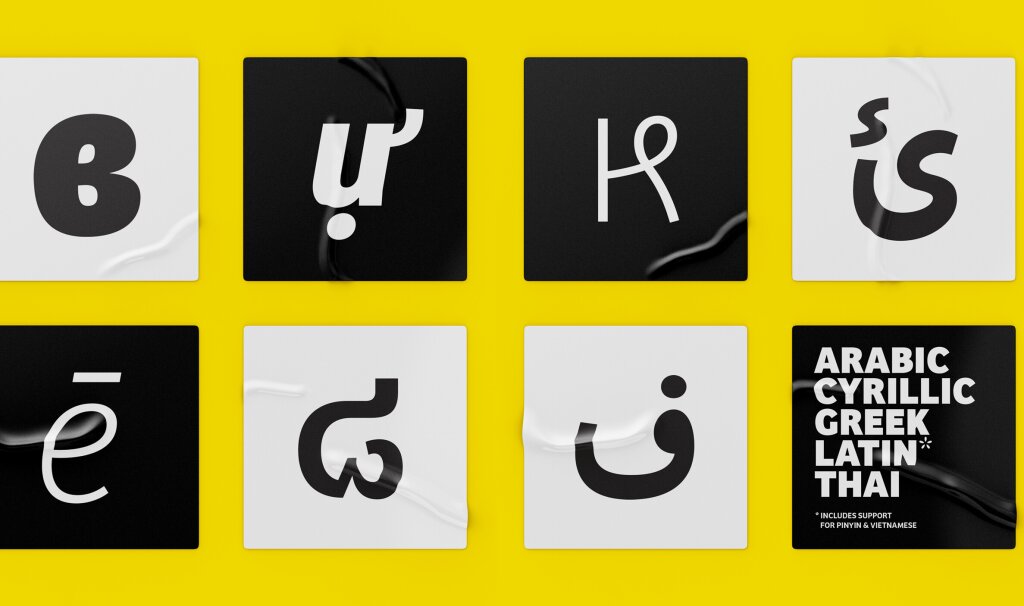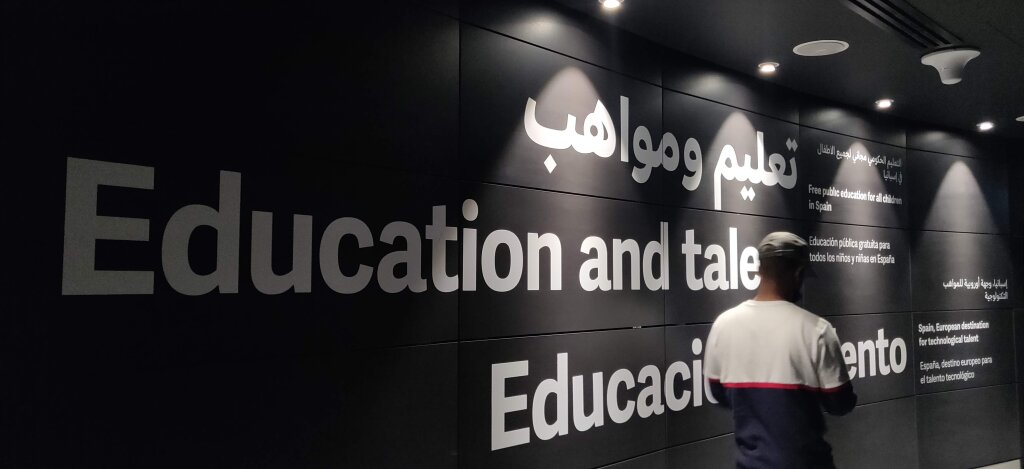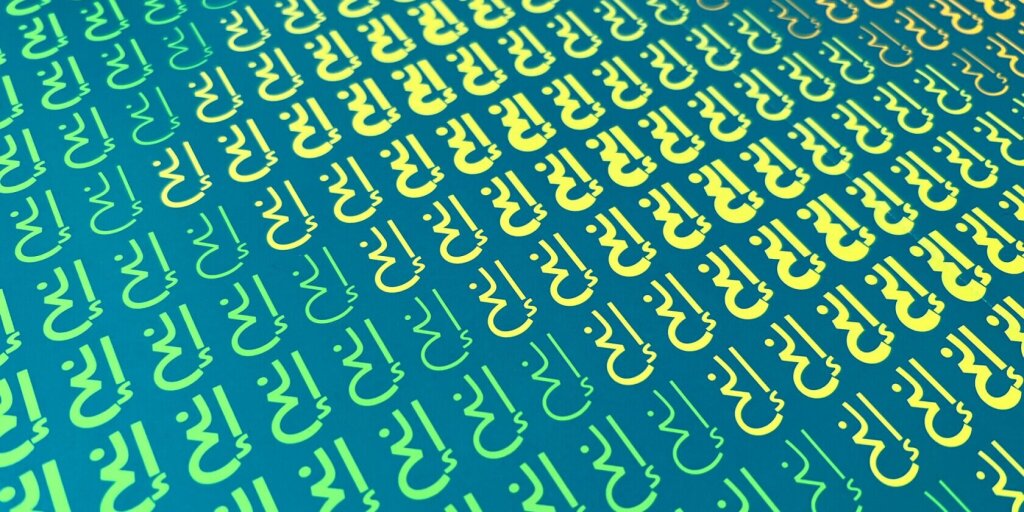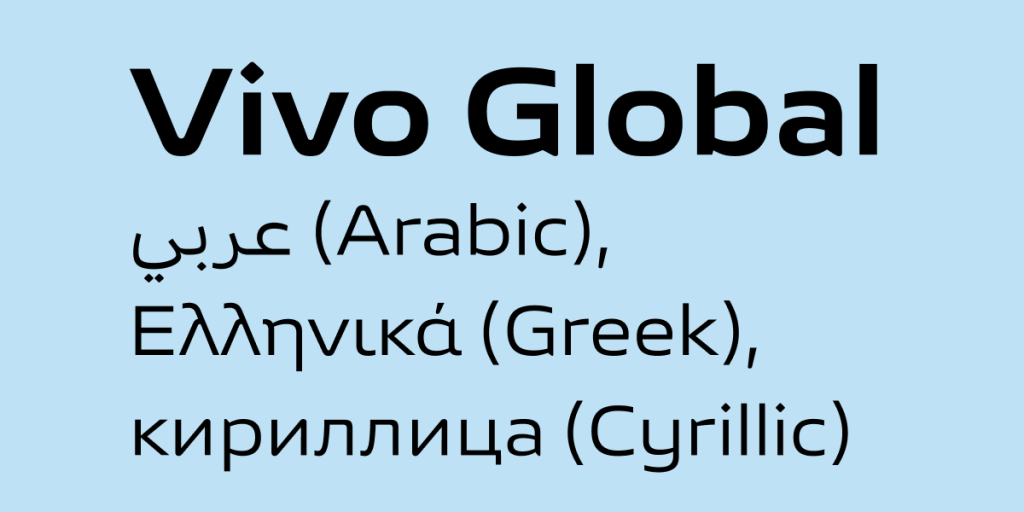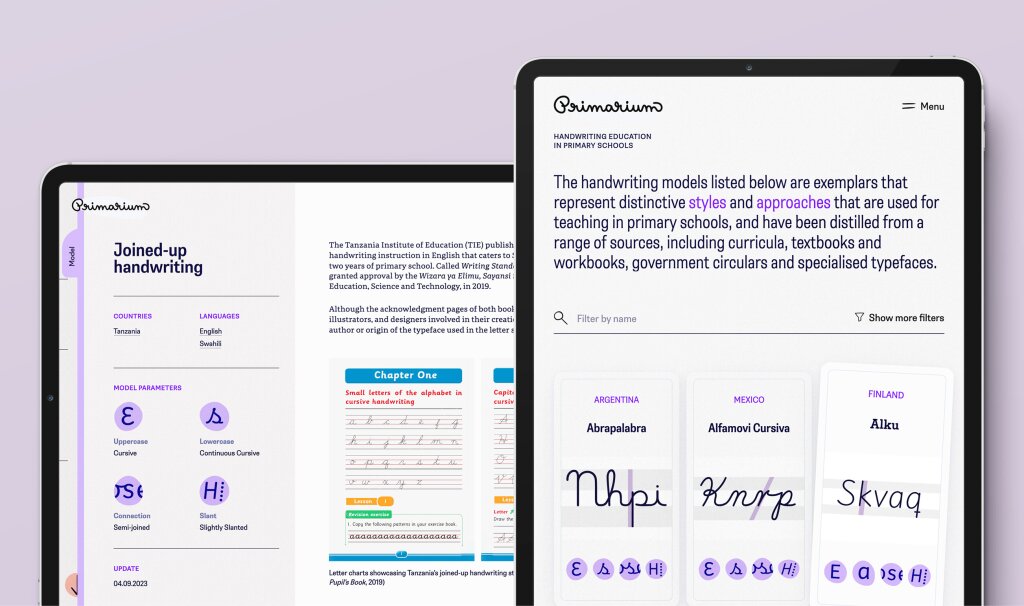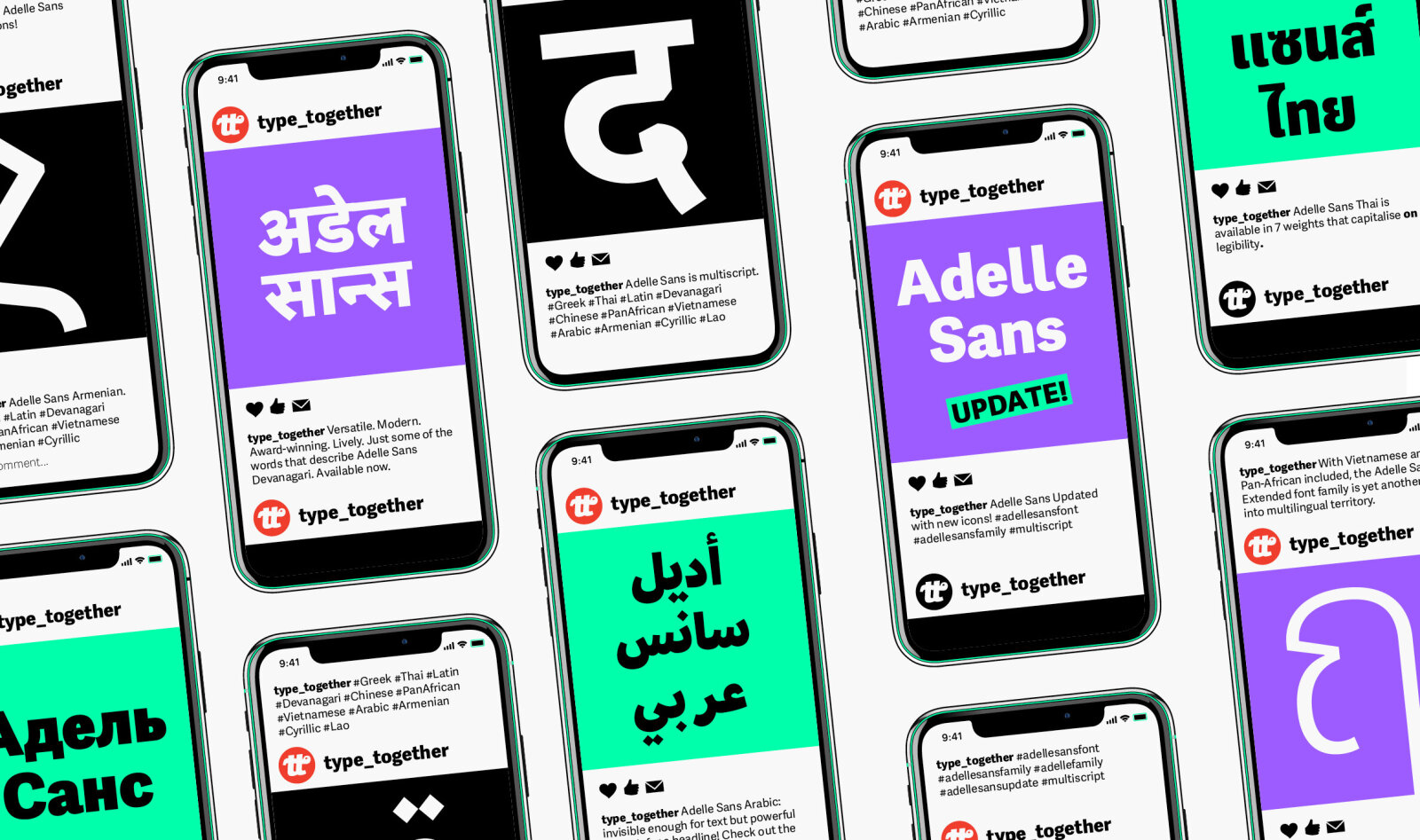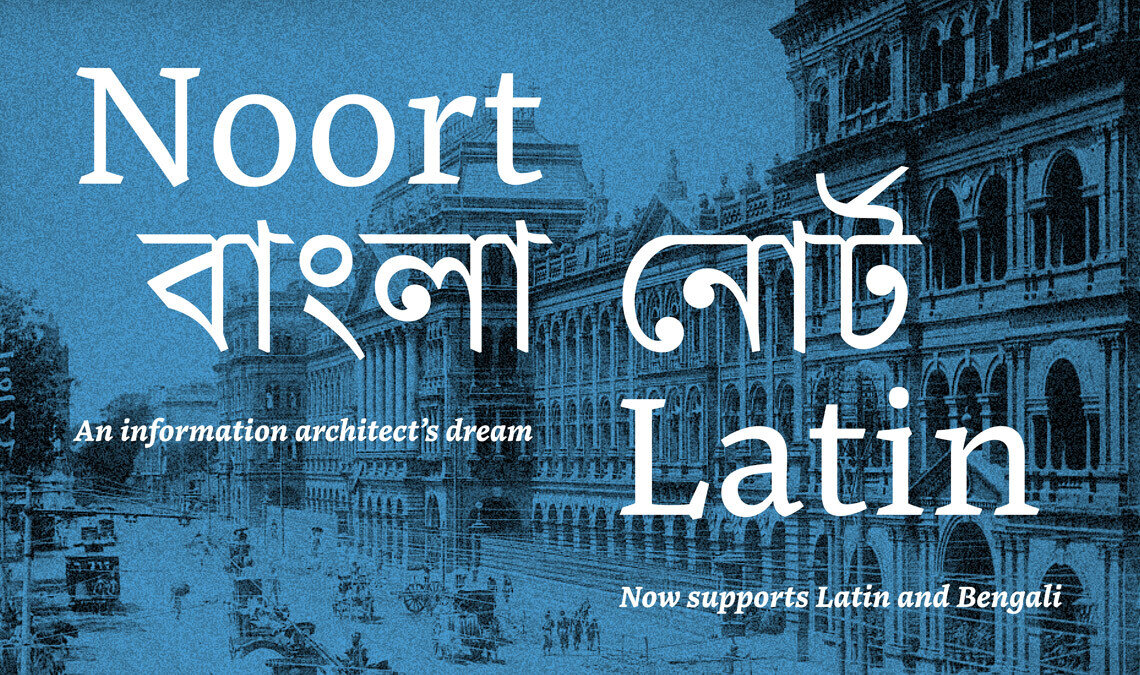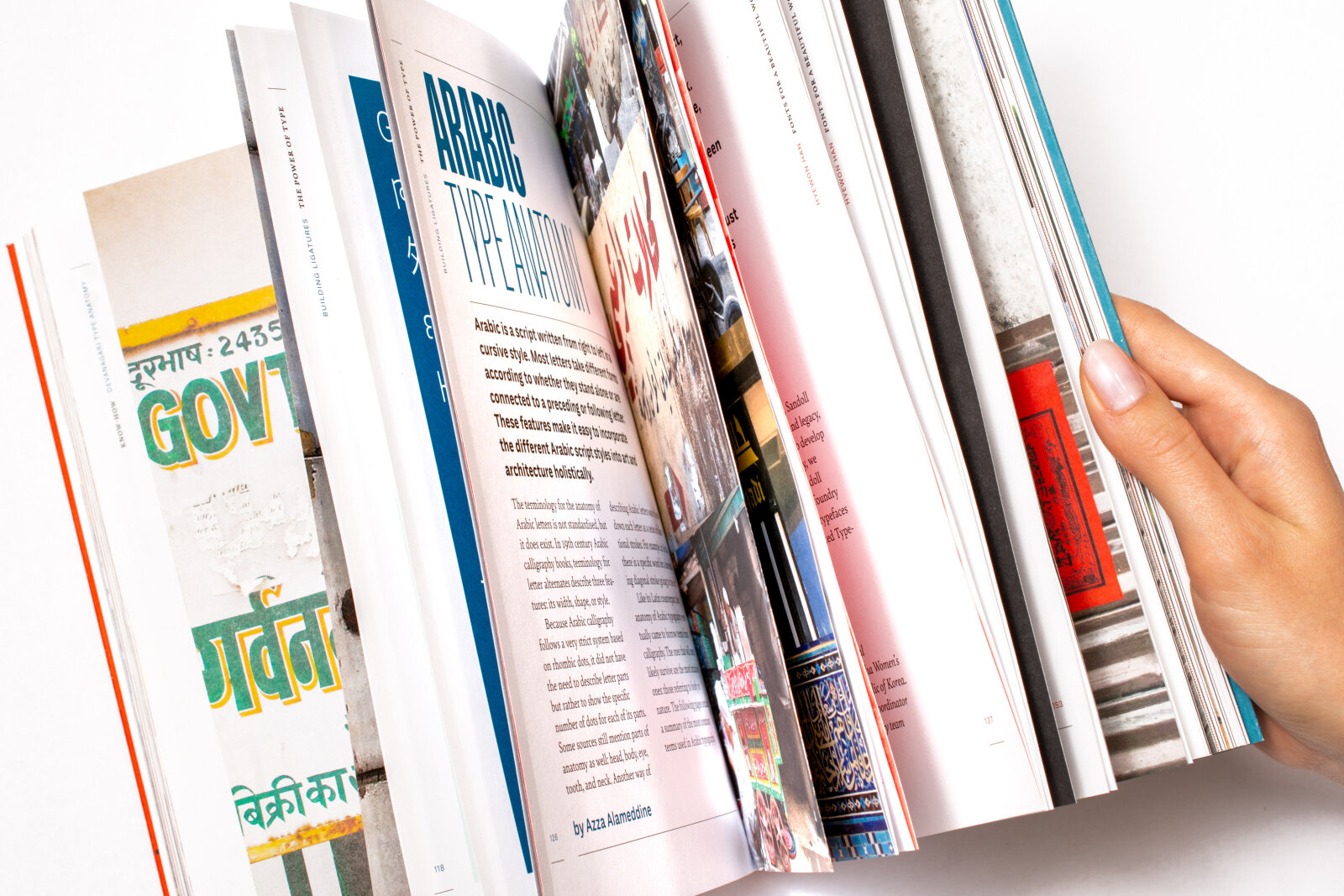
TypeTogether
TypeTogether is an independent type foundry with several key commitments: we are knowledgeable, collaborative, global, mindful, and playful. Our knowledge spans the wide but underserved market of multiscript typefaces. Our collaborative and global nature brings experts together from all over the world to serve our clients with excellence. While we are mindful of making a positive impact for people, planet, and across the design world, we take our work seriously, not ourselves. Useful and captivating multiscript fonts, collaboratively made for the benefit of all.
Building ligatures book TypeTogether
Postea comes in five scripts: Arabic, Cyrillic, Greek, Hebrew, and Latin, including Vietnamese
Spanish Pavillion in Dubai
The Barcelona-based multidisciplinary studio OnionLab collaborated with External Reference to create the exhibition journey at the Spanish Spain Pavilion at Expo Dubai 2020, coordinated by Acción Cultural Española (AC/E). Adelle Sans Latin and Arabic bring the content to life on all exhibition panels and interactive screens.
Bree Arabic poster
To mark the release of our Bree Arabic type family, our talented graphic designer Rabab Charafeddine designed this cute shining poster, now available in our store.
Primarium
Primarium is a pioneering educational project by Sensei Lab and TypeTogether which studied the methods of Latin script-based handwriting instruction for primary school children, spanning five continents and about one-quarter of the world.
Custom typeface for Vivo
TypeTogether was commissioned to create a multiscript customised update of vivo Type, adding Arabic, Cyrillic, and Greek to the Latin alphabet.
Noort Bengali by Juan Bruce
What are the challenges and opportunities in designing multiscript fonts? How do you see multi script typography develop and used now and in the next decade?
Designing a typeface that does not originate from one’s own cultural or linguistic context is inherently a challenging endeavour. There is a risk of unintentionally copying existing typefaces, sticking too much to tradition, not being bold enough to explore new possibilities, or letting the Latin script overly influence the design in form and concept – especially when the starting point is a Latin typeface.
Collaboration with type experts, both as designers and consultants, is crucial for achieving a successful outcome. Ideally, projects involving multiple scripts would start with the development of all scripts from scratch. However, in our experience, this is rarely the case. Typically, the Latin script already exists, and the challenge then lies in respecting the typographic rules and traditions of each script while translating the intent and concept of the Latin typeface into the other scripts without imposing upon them.
Creating high-quality multiscript typefaces that are sensitive to different cultures is an important way to push type design forward and inspire new discoveries. These typefaces help increase diversity in expression and accessibility, while also supporting the preservation of languages and knowledge.
In today’s increasingly connected and globalised world, where companies expand into international markets, information flows faster than ever, and people move across borders, the need for high-quality multiscript typefaces is growing. These typefaces are not just tools; they are bridges between cultures, helping to improve communication and celebrate diversity.
Adelle Sans is a flexible and personable world-ready sans, providing true multilingual font support
TypeTogether: Care for Characters
From TypeTogether’s beginning in 2006, co-founders Veronika Burian and José Scaglione committed to one primary goal: sharing their love of typography by creating modern multiscript fonts for the world through deep research and expert collaboration. They built a talented and diverse core team by purposefully hiring from different countries and backgrounds, rounding it out with a network of other specialists who intermittently cooperate on specific projects.
TypeTogether’s typefaces are specifically designed for enjoyable long-form reading, legibility, and as custom fonts for corporations and branding. Honoured for its high quality, usefulness, personality, and ability to grab attention, their font library already covers 14 scripts, hundreds of languages, and is diligently expanding each year.
In addition to bringing quality typefaces to market, TypeTogether also does their part to improve the health of the design industry and produce positive impact through written communication. In numerous ways they steadily contribute to literacy and design education, support minority languages, and champion fairness in the typography business. From the very start they have cared about personal relationships, quality work, and about our sphere of impact in this world. TypeTogether’s holistic process — from insightful design and enviable hires, to relational business practices — has turned their small, independent font company with a vision for responsibility and cultural respect into one of the most influential type foundries today.
Bree is a multi-award winning spirited and rhythmic upright italic